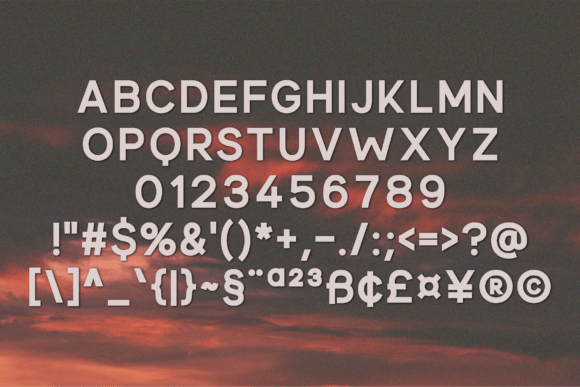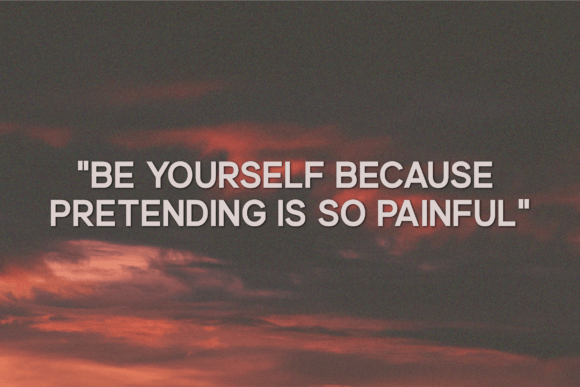
The Perfect Typography Companion
As designers, we’ve all been there – staring at a blank canvas, trying to bring a concept to life. The words are flowing, the ideas are pouring in, but that one crucial element is missing – the perfect font. It’s a moment of pure creative bliss when you finally find ‘the one’ that makes your design pop. For me, that moment came when I stumbled upon the Brunzeld Font.
Designed to be versatile and eye-catching, the Brunzeld Font is an all-caps sans serif font that effortlessly adapts to any context. Whether it’s a bold logo, a memorable brand, or an attention-grabbing web heading, Brunzeld Font delivers. Its smooth lines and subtle contrast make it a valuable asset for designers looking to elevate their designs.
Brunzeld Font Key Features
- Font Family: Brunzeld is a sans-serif font family, ideal for modern designs and digital applications.
- Unique Characteristics: Brunzeld features a clean, geometric design with a subtle rounded edge, making it easy to read and versatile for use in various contexts.
Brunzeld Font Review
I recently had the chance to work with the Brunzeld font, and I must say it’s an interesting addition to the world of typography. ✨ One of the things that stands out about Brunzeld is its unique aesthetic, which blends modern and vintage elements to create a distinctive look.
From a design perspective, I appreciate the attention to detail that has gone into creating this font. ✨ The rounded edges and soft curves give Brunzeld a friendly, approachable feel, while the bold weights add a sense of confidence and sophistication. ✨ The font also comes in a range of weights and styles, making it suitable for a variety of design projects.
- Unique aesthetic that blends modern and vintage elements
- Attention to detail in design and typography
- Range of weights and styles for flexibility
- May not be suitable for projects requiring a strictly modern or minimalist look
- Some characters may appear slightly irregular or inconsistent in certain weights
- Lack of support for certain languages or character sets
Overall, I think Brunzeld is a solid addition to any designer’s toolkit, offering a unique and versatile font that can add a touch of personality to a wide range of projects. However, it’s essential to be aware of its limitations and consider these when making design decisions.
Getting the Most Out of Brunzeld Font
For the best results, use Brunzeld font in conjunction with bold or italic styles to add emphasis to your text.
Brunzeld font is ideal for use in creative and artistic projects, such as:
- Graphic design and branding
- Typography and lettering
Alternatives to Brunzeld Font for Designers
Great Vibes is a beautiful, handwritten font perfect for creative projects, such as posters, invitations, and social media graphics. It’s ideal for adding a touch of elegance and sophistication to your designs.
Comparison to Brunzeld Font: Great Vibes has a more refined and polished look compared to Brunzeld Font, which is more rough and edgy. Great Vibes is suitable for projects where you want to convey a sense of luxury and refinement, while Brunzeld Font is better for projects with a more rugged and industrial feel.
Dancing Script is a lively and playful handwritten font ideal for projects that require a touch of whimsy and fun, such as children’s books, party invitations, and social media graphics.
Comparison to Brunzeld Font: Dancing Script has a more carefree and playful feel compared to Brunzeld Font, which is more serious and edgy. Dancing Script is suitable for projects where you want to convey a sense of joy and excitement, while Brunzeld Font is better for projects with a more intense and dramatic feel.